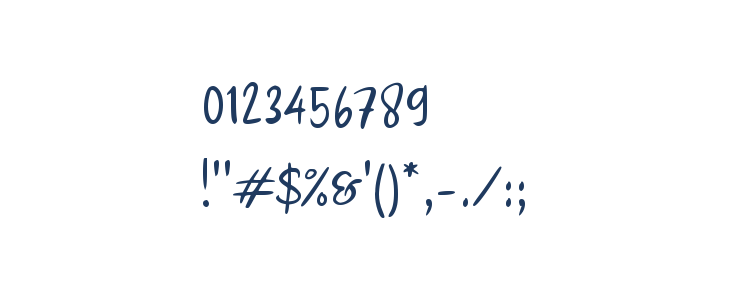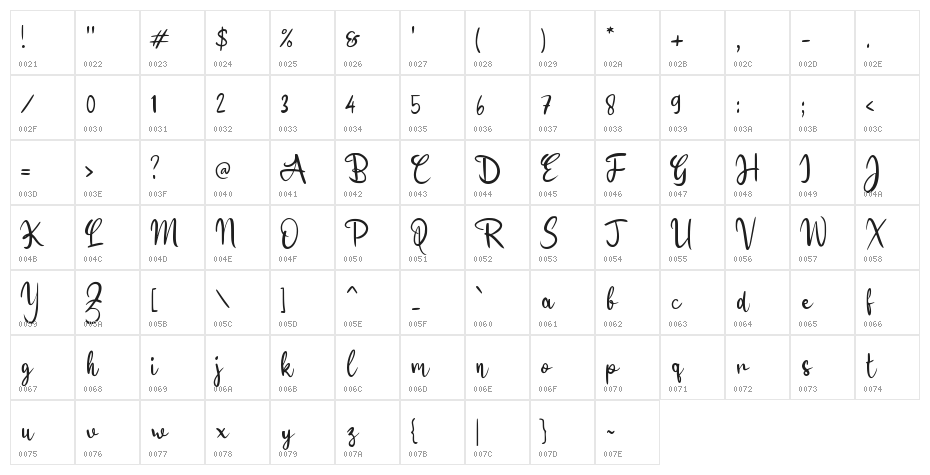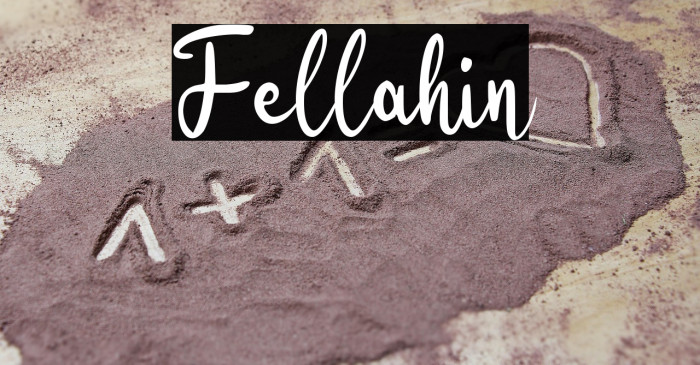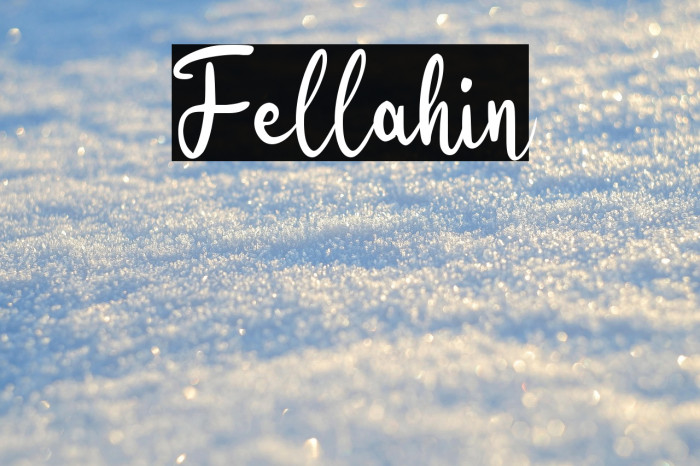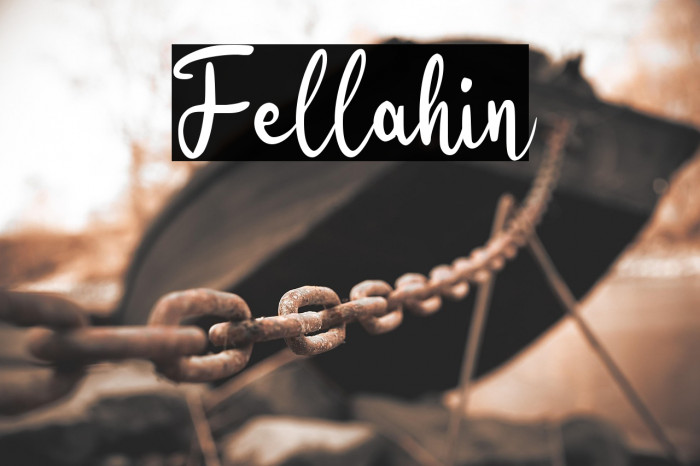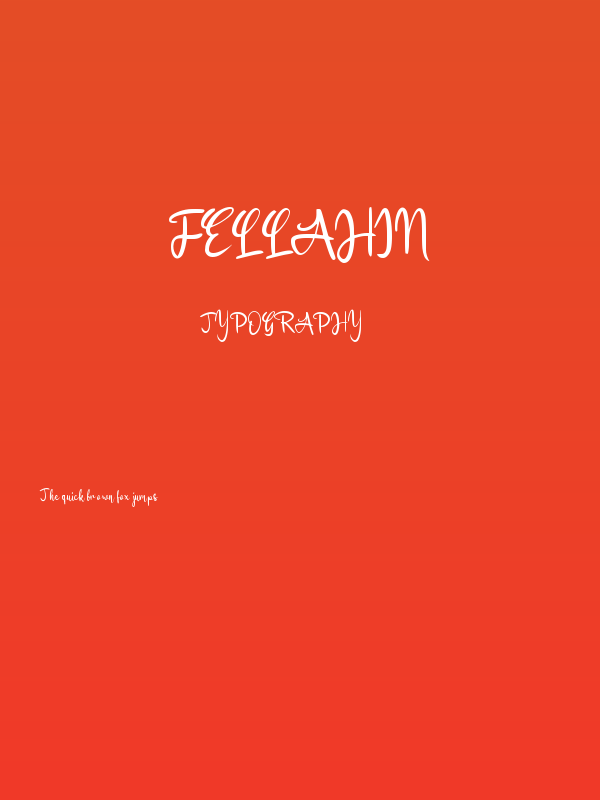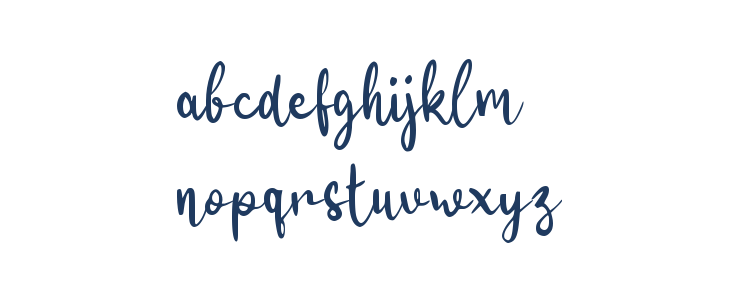
Fellahin Font
Fellahin Description
This font features a playful and elegant script style with a handwritten appearance. The uppercase letters are characterized by their flowing, cursive forms, while the lowercase letters maintain a consistent, smooth line that enhances readability. The numerals are designed to match the overall aesthetic, providing a cohesive look. Special characters are integrated seamlessly, adding versatility to the font. The strokes are moderately thick, offering a balanced contrast that makes the text stand out without overwhelming the reader. This font is ideal for projects that require a personal touch, such as invitations, greeting cards, or branding materials.